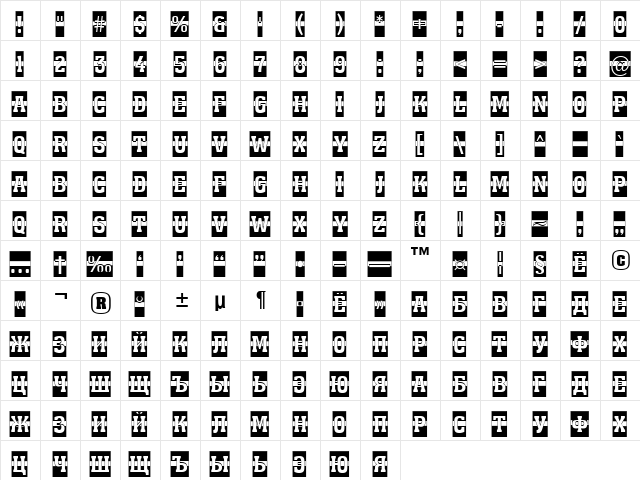
a_AssuanTitulCm1St Medium
Design Context for a_AssuanTitulCm1St Typeface
a_AssuanTitulCm1St is a composed and adaptable typeface that performs quietly and consistently across a wide range of design contexts.